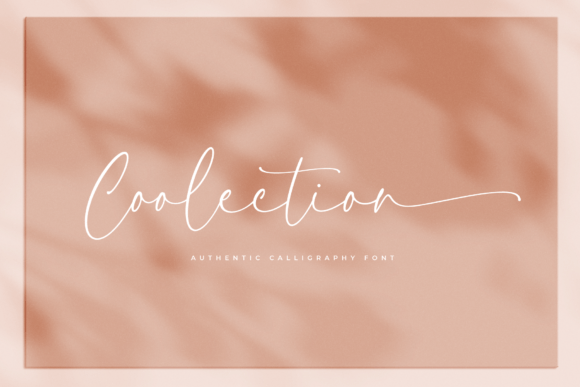
Prepare to be mesmerized by Coolection Calligraphy Font, an exquisite tribute to timeless elegance. Its graceful strokes and delicate curves carry the essence of authenticity, capturing the very soul of calligraphy. This font family, proudly brought to you by Pen Culture, is a true masterpiece, a testament to the enduring power of beauty.
With Coolection Calligraphy Font, you hold the key to unlocking a world of design possibilities. Its enchanting swashes and ligatures add a sprinkle of magic to your creations, transforming ordinary text into captivating works of art. Experience the effortless enhancement of your projects, whether it's an enchanting invitation, a distinctive logo, or an elegant branding suite.
Coolection Calligraphy Font is more than just a font; it's an experience. Dive into a realm of sophistication and refinement, where every letter dances with grace and harmony. Witness the transformation of your designs as they take on an aura of timeless elegance. With this font, you're not just typing words; you're creating masterpieces.
Soar to new heights of creativity, let your imagination run wild, and embark on a journey of design excellence with Coolection Calligraphy Font. Embrace the essence of beauty and elevate your projects to unprecedented levels of sophistication. This font is not just a tool; it's a gateway to a world of elegance and enchantment.
Don't settle for ordinary fonts that blend into the background. Dare to be different, to make a statement, to captivate your audience with the allure of Coolection Calligraphy Font. Step into a realm where beauty reigns supreme and experience the transformative power of a font that speaks to the heart.
Take the first step toward design greatness and immerse yourself in the world of Coolection Calligraphy Font. Let its timeless elegance elevate your projects and leave a lasting impression. Unleash your creativity and experience the joy of creating designs that truly resonate with your audience. Coolection Calligraphy Font - the epitome of beauty, elegance, and inspiration awaits your artistic touch.